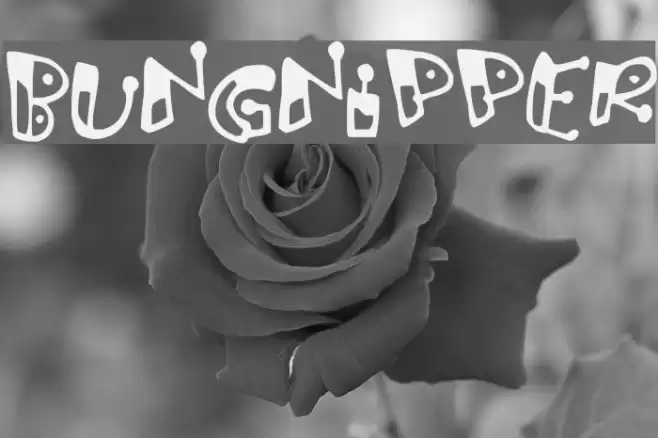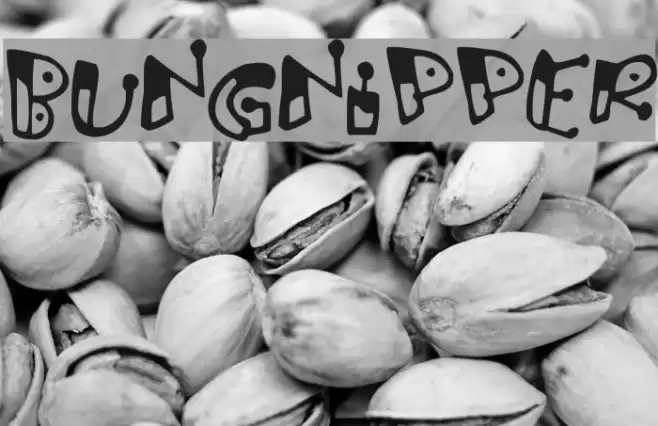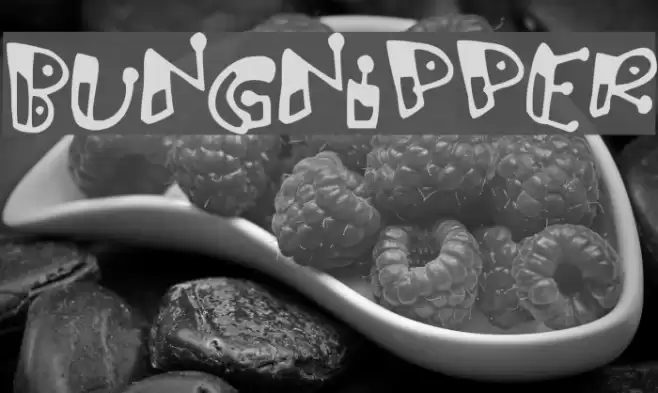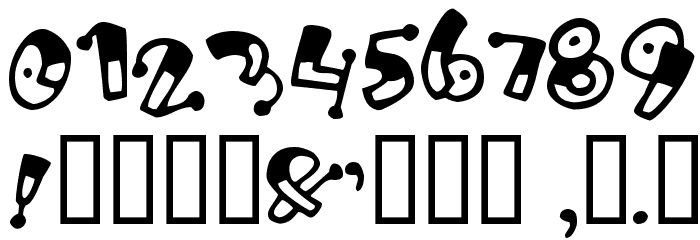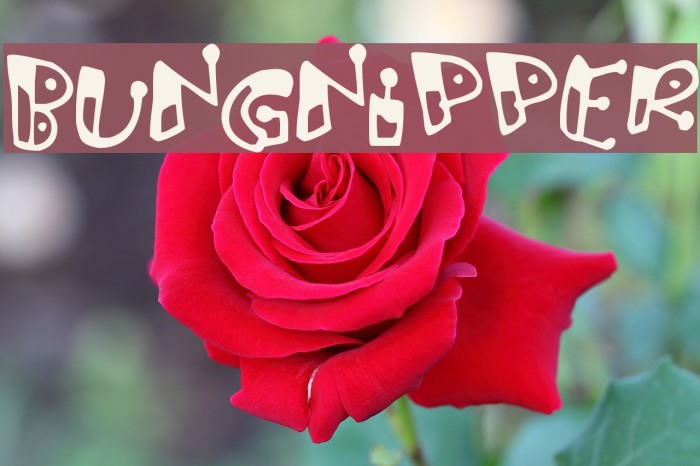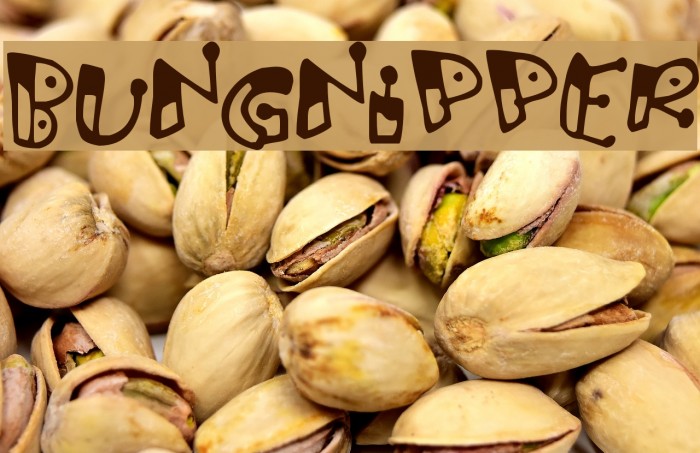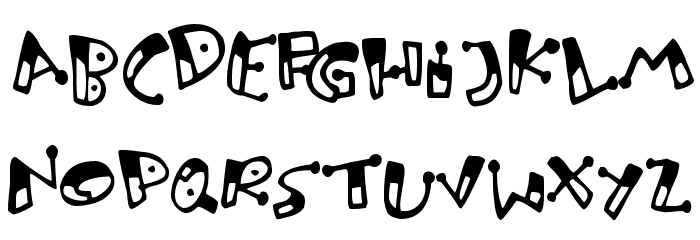
Bungnipper Font
Bungnipper Description
This playful and whimsical font features a unique and quirky design with irregular shapes and exaggerated curves. Each character is distinct, with some letters incorporating playful dots and unexpected angles, giving it a lively and animated feel. The font's bold and chunky appearance makes it stand out, while the irregularities add a sense of fun and creativity. It's perfect for projects that require a touch of humor and personality, such as children's books, playful branding, or creative posters. The font maintains a consistent weight throughout, ensuring readability despite its unconventional style.
A playful, bold font with quirky, irregular shapes and exaggerated curves from Quirky fonts.
- Proposed Projects: Ideal for children's books, playful branding, creative posters, and fun invitations.
- Overall Style: Playful